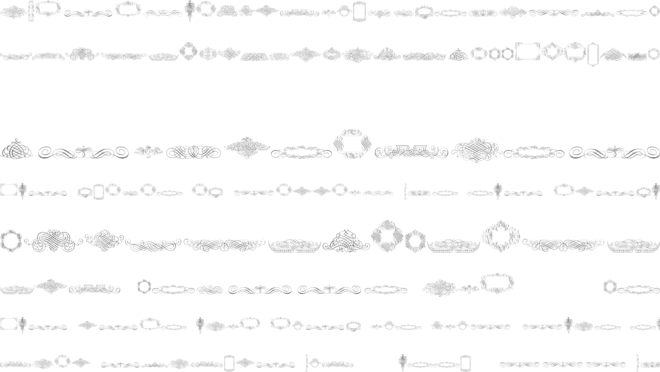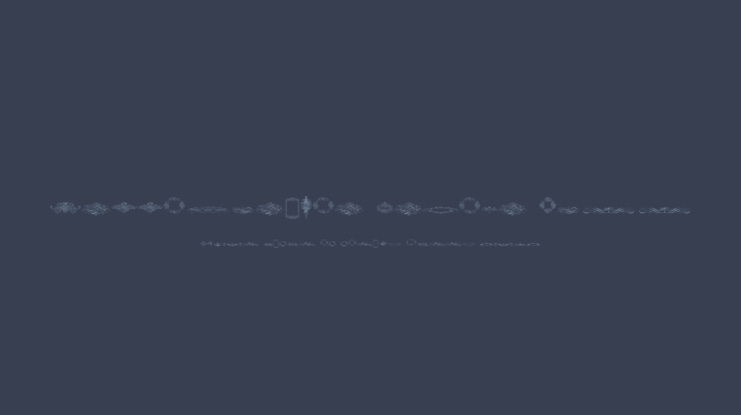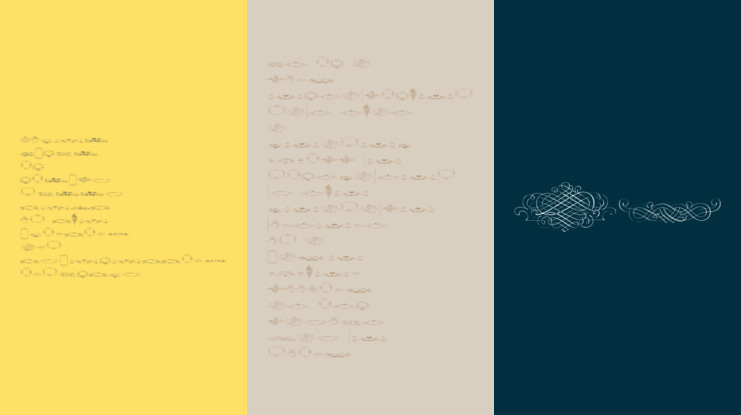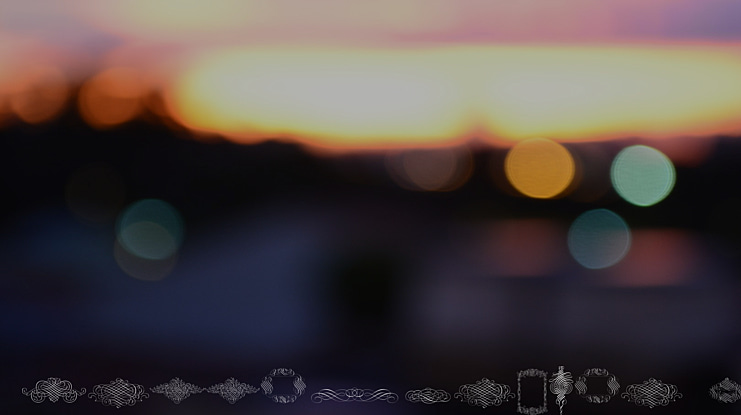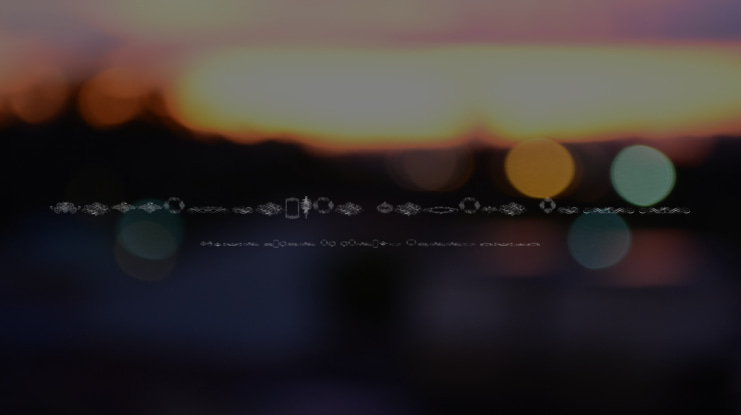
Calligraphia Latina Free Font
Calligraphia Latina Free, by Intellecta Design
Calligraphia Latina Free is a "limited free" version of Calligraphia Latina, the Intellecta's best-seller over the last five years, with unpublished gliphs. To purchase the rough, popular and original "Calligraphia Latina" and commercial
One of the most successful new ornament fonts is CalligraphiaLatina. It is part of a trend thats been quite popular lately: messed-up calligraphy. You can dirty up (or deconstruct) gracious classic-looking curves in many ways: using a
variety of software filters; by superimposition; or even by hand. Brazilian designer Paulo W has his own method, possibly involving a scanner and some auto-tracing. The result works well when you want that worn-down grungy look,    More...
combining CalligraphiaLatina ornaments with your favorite typeface.